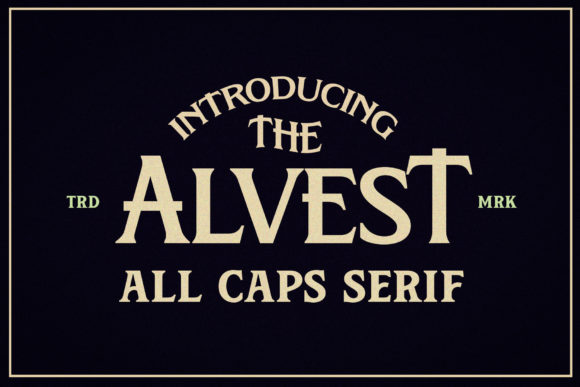
The Alvest Font: A Timeless Choice for Creative Projects
I’ll never forget the time I was working on a project for a client who wanted a vintage-inspired look. I had spent hours browsing through font libraries, but nothing seemed quite right. That was until I stumbled upon the Alvest font. Its bold, serif lines and classic charm instantly caught my attention, and I knew I had found the perfect fit. In this article, I’ll share my experience with the Alvest font, its features, and how to make the most of it in your creative projects.
A Personal Review of Alvest Font
What I Love About Alvest Font
- ✨ Bold and eye-catching: Alvest font is perfect for making a statement. Its bold lines and vintage style make it stand out in any design.
- ✅ Versatile: Whether you’re working on a digital project, crafting, or creating greeting cards, Alvest font adapts seamlessly.
- 🎨 Highly customizable: With its wide range of OpenType features, glyphs, and stylistic alternates, you can experiment with different styles to suit your project.
While Alvest font is an excellent choice, there are a few things to keep in mind:
- 🤔 Limited use in small sizes: Due to its bold nature, Alvest font may not be the best choice for small text sizes or body text.
- ⚠️ Some characters may require manual kerning: As with any font, you may need to adjust the kerning of certain characters to achieve optimal results.
The Backstory of Alvest Font
Alvest font was designed with the intention of capturing the essence of vintage typography. Its creator drew inspiration from classic serif fonts of the early 20th century, adding a modern twist to make it suitable for a wide range of applications.
Q: Is Alvest font suitable for body text?
A: While Alvest font can be used for body text, its bold nature makes it more suitable for headlines and titles.